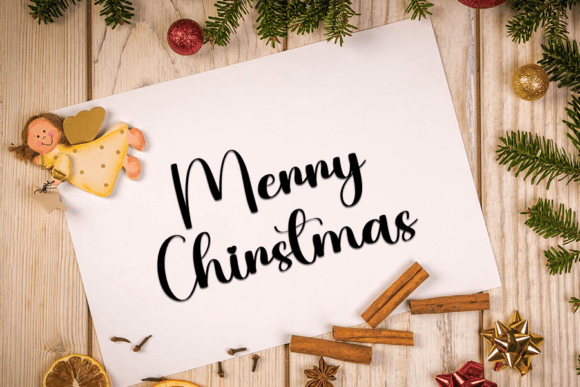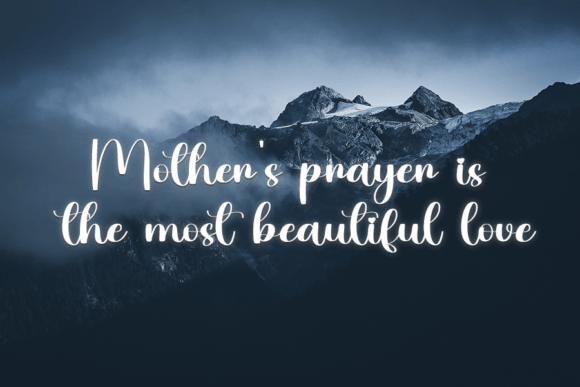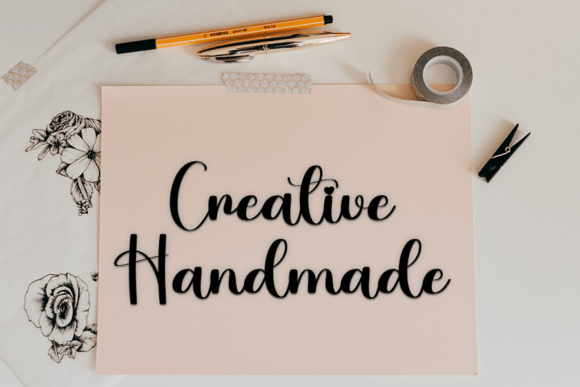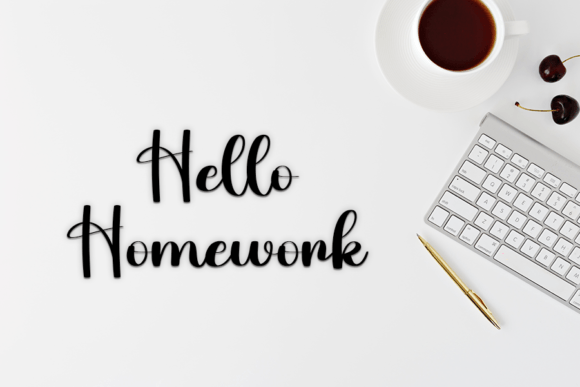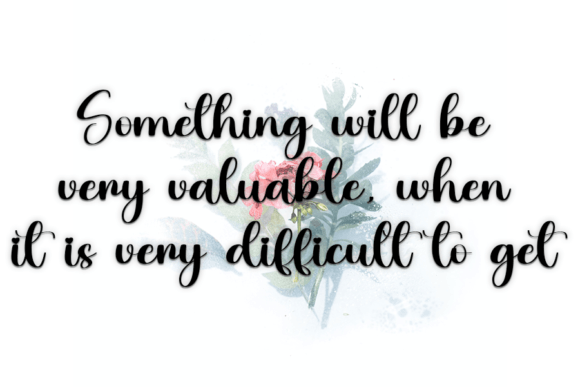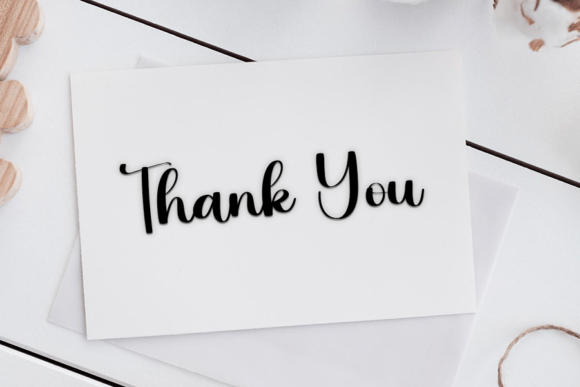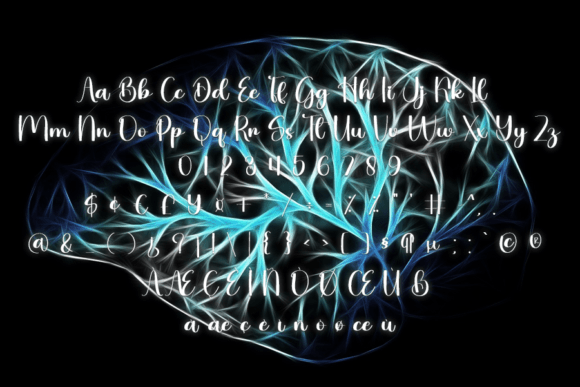
Brain Font
**Brain**: *Where Cool Modernity Meets Timeless Elegance*
Brain isn’t just a font; it’s a harmonious blend of cool modernity and timeless elegance, meticulously designed to enhance the beauty of your projects. With its stylish curves, this handwritten font exudes a sense of sophistication that complements a wide variety of written content.
What sets Brain apart is its remarkable ability to effortlessly merge modern coolness with enduring elegance. The font’s beautifully curved characters add a touch of artistic flair to your projects, making it suitable for a diverse range of applications. Whether you’re working on creative writing, branding materials, social media graphics, or any other visual content, Brain is the font that can effortlessly elevate your designs.
Brain showcases the perfect balance between modern aesthetics and timeless appeal, making it a versatile choice for projects that demand both modern coolness and enduring elegance.
In branding, Brain brings a sense of stylish authenticity, making it a valuable asset for logos and visual identities. It has the power to convey a brand’s contemporary character and values, resonating effectively with its target audience.
When applied to creative writing or artistic projects, Brain’s curves add a layer of uniqueness and sophistication, transforming your content into a captivating visual experience. Social media posts featuring Brain radiate style and elegance, captivating your audience and making your content truly stand out.
Brain’s adaptability is one of its most remarkable qualities. It can transition seamlessly from a formal and polished tone to a more casual and friendly one, making it suitable for a wide range of creative projects. Its ability to harmonize with different styles and themes ensures that it remains a cherished choice for designers and creators across diverse industries.
In summary, Brain is more than just a font; it’s a design asset that seamlessly combines cool modernity with timeless elegance. Its unique blend of stylish curves and classic charm positions it as an indispensable tool for anyone aiming to infuse sophistication into their visual communication. Embrace the cool modernity of Brain, and watch your creative projects flourish with style and enduring allure.